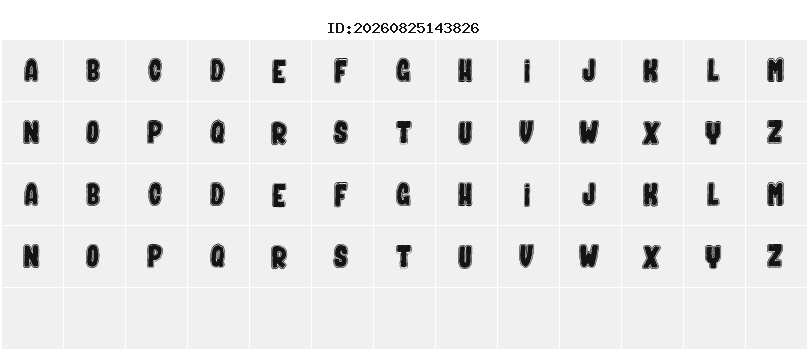
• Font Name: SPIRIT & GHOST
• Full Font Name: SPIRIT & GHOST
• Designer: dcoxy Medina Gregory
• Manufacturer: dcoxy Medina Gregory
About SPIRIT & GHOST.ttf
SPIRIT & GHOST.ttf is a modern, elegant sans-serif font designed for ultimate readability and visual harmony. Perfect for branding, headlines, web design, and print materials.